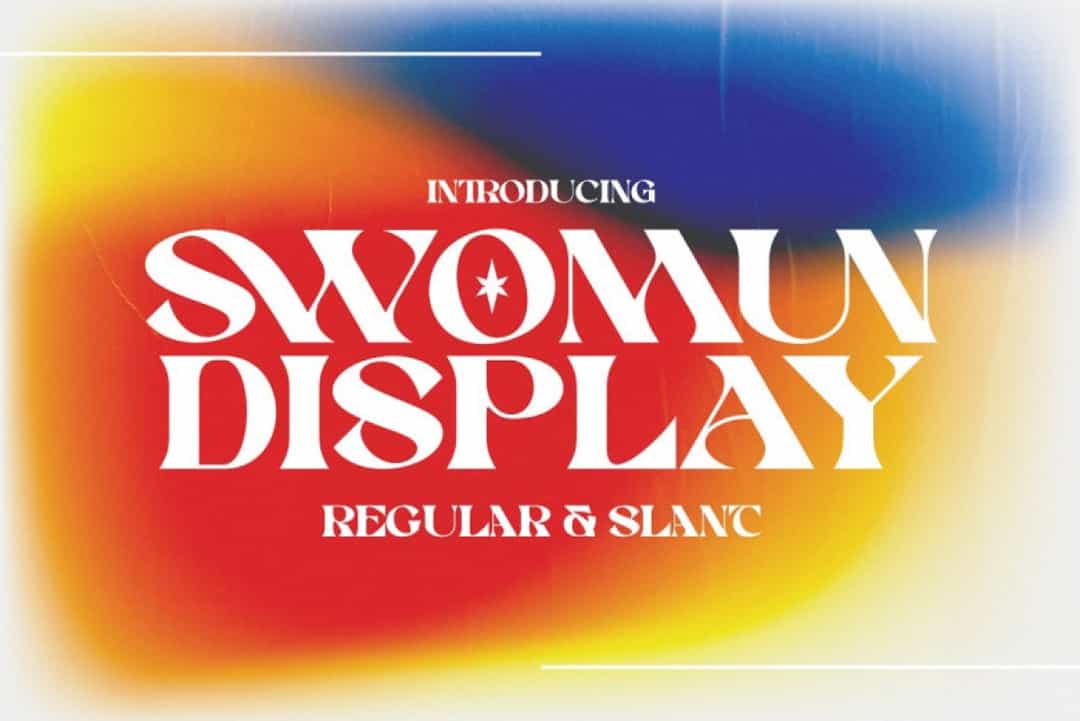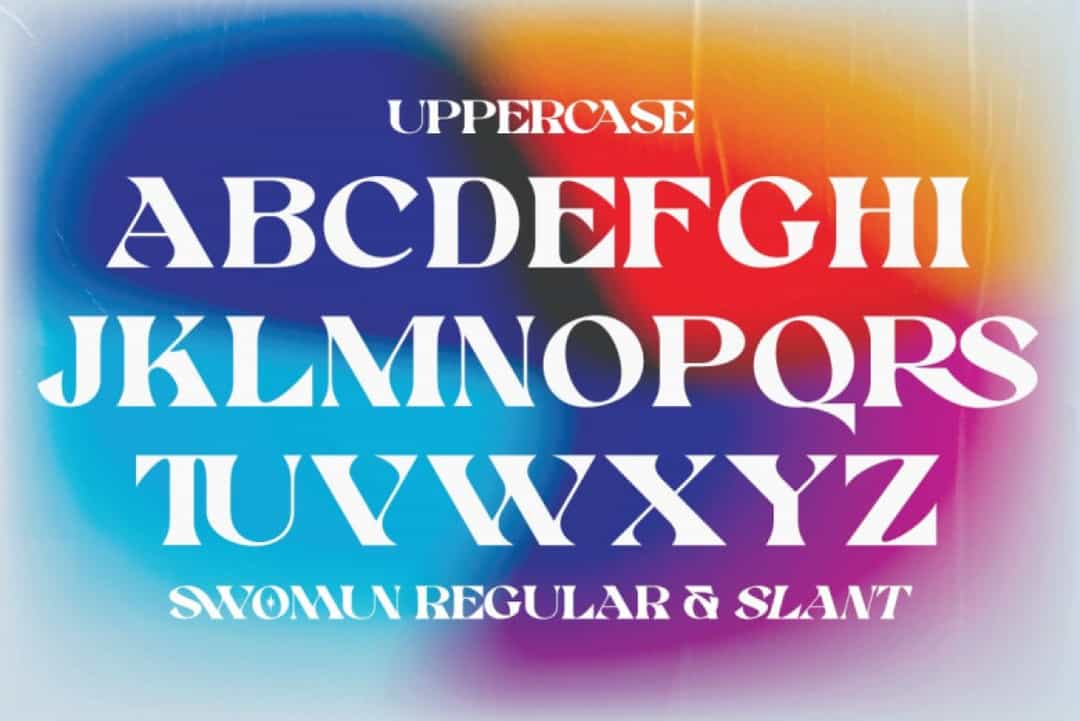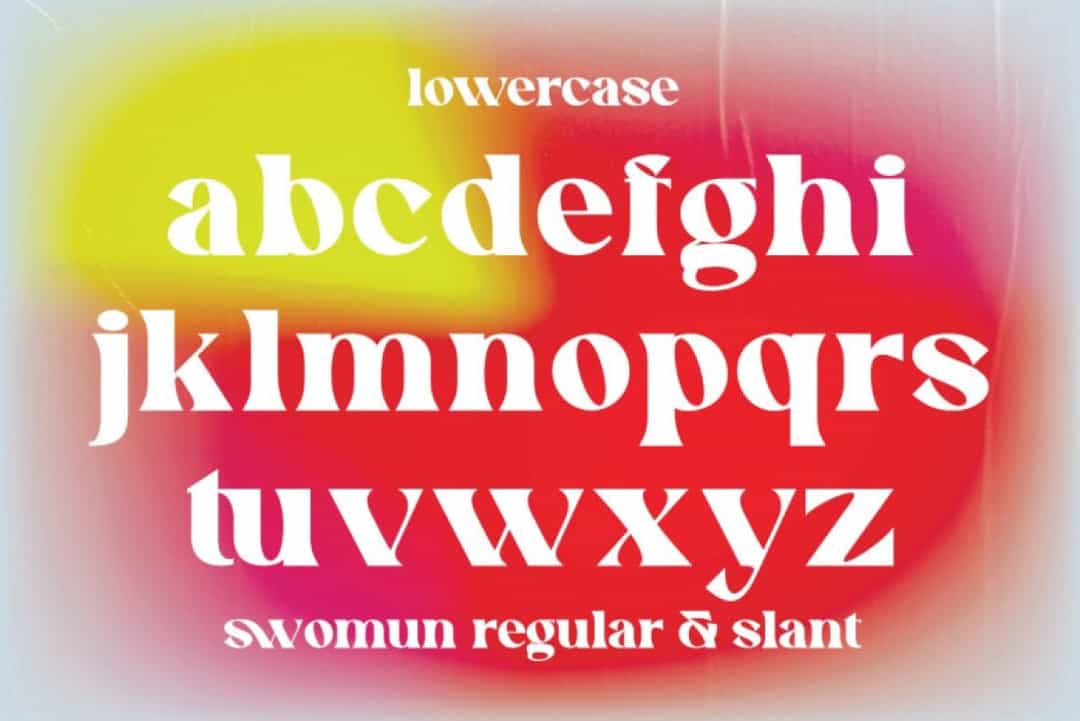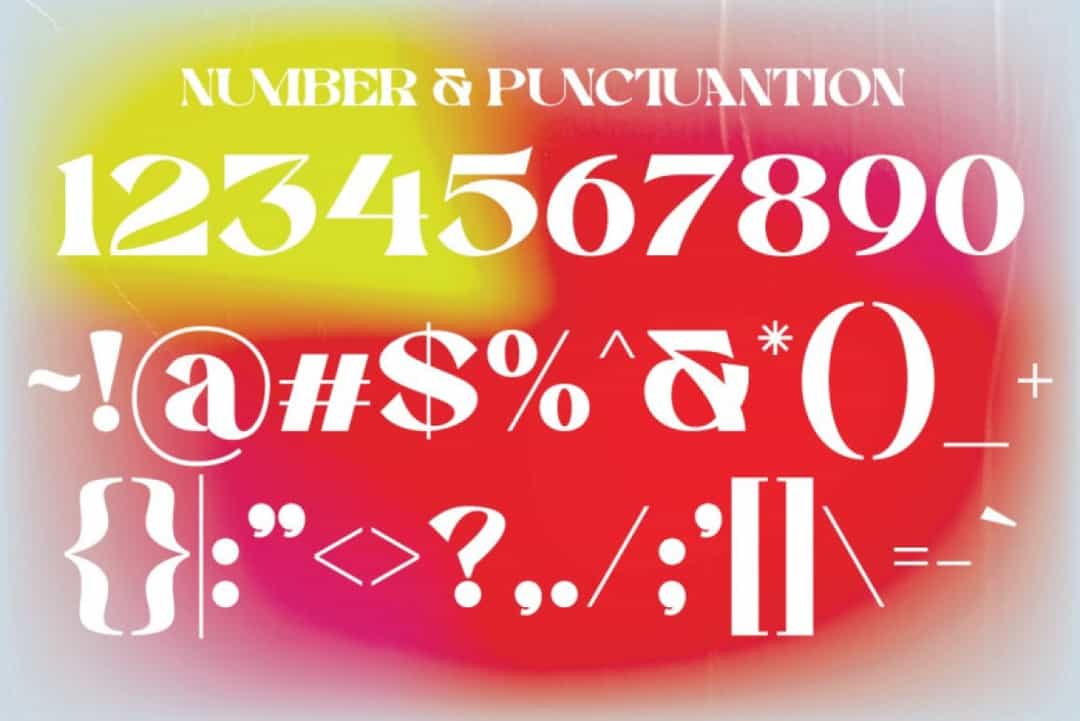
Swomun is an exciting and modern serif typeface with an arresting design and bouncing base! Perfect for invitations like greeting cards, promotional materials like business cards posters and quotes and much more – Swomun makes up part of an uncompromising Bold display!